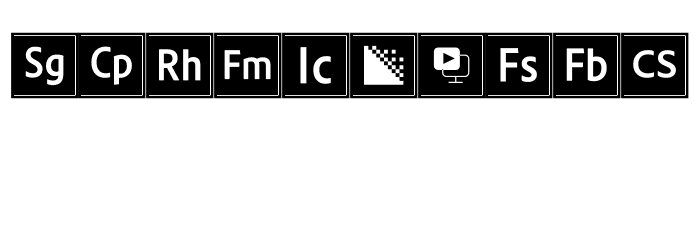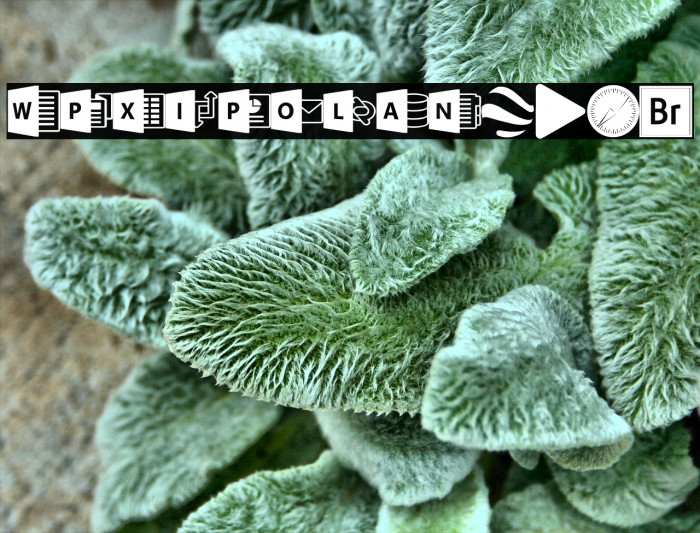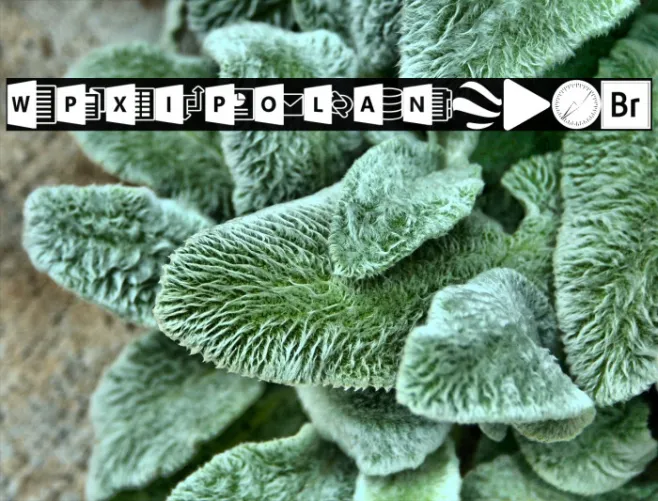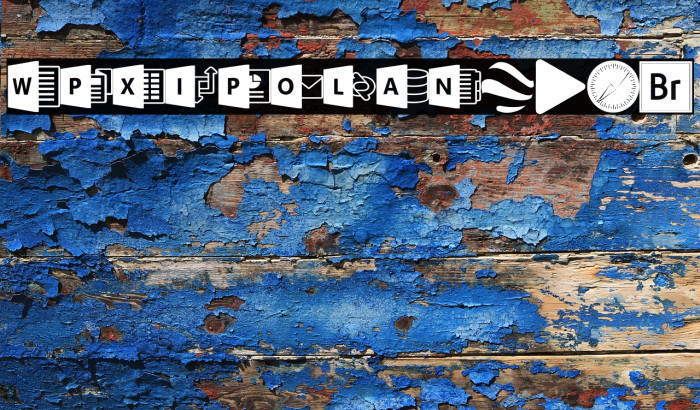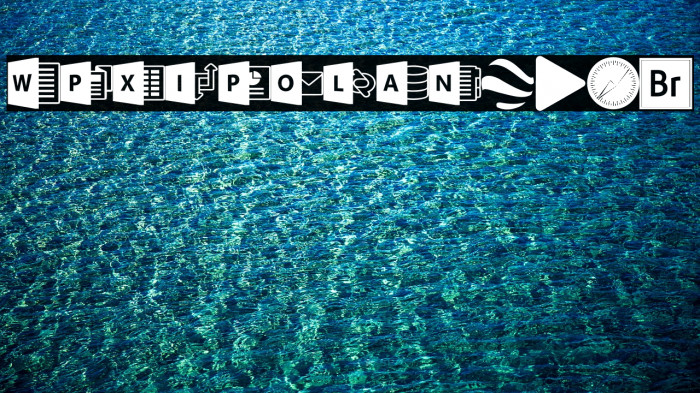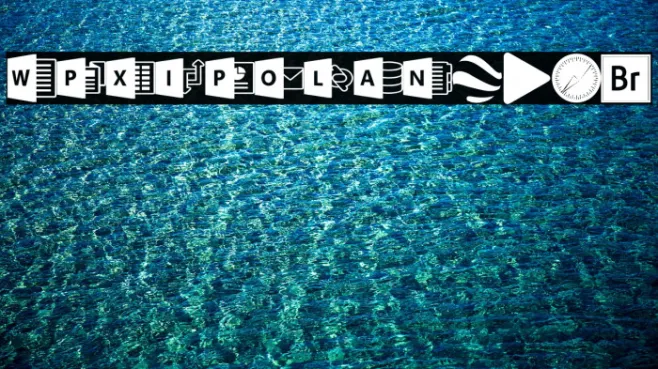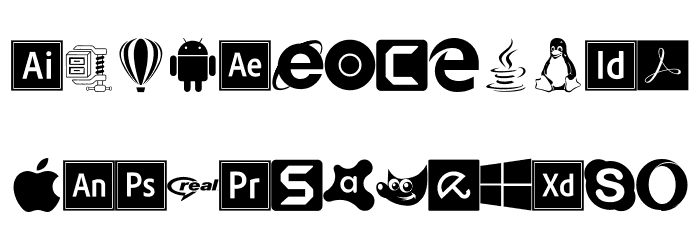
Font Logos Programs Font
Font Logos Programs Description
A decorative display font featuring a mix of stylized letters and recognizable software and technology logos, each enclosed in a black square or circle with white icons or text. The glyphs are bold, geometric, and highly contrasted, designed to mimic the branding of various popular programs and platforms.
| Overall Style | Decorative, Modern, Playful |
| Use Case | Logos, Posters, Themed Graphics, Educational Visuals |
| Proposed Projects | Tech-themed posters, software branding mockups, educational materials about programs, playful infographics. |